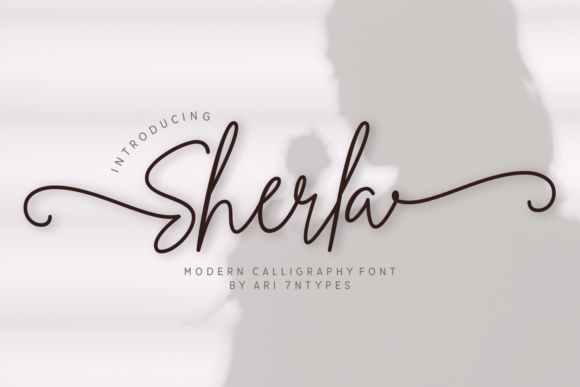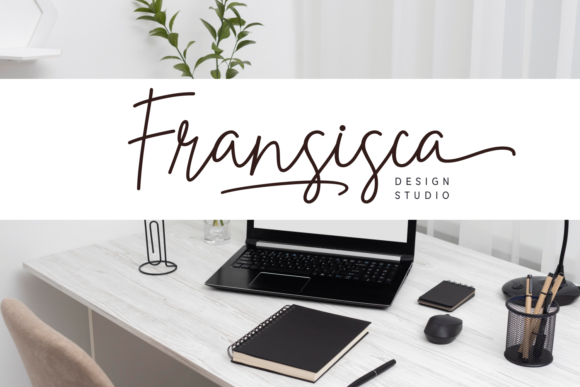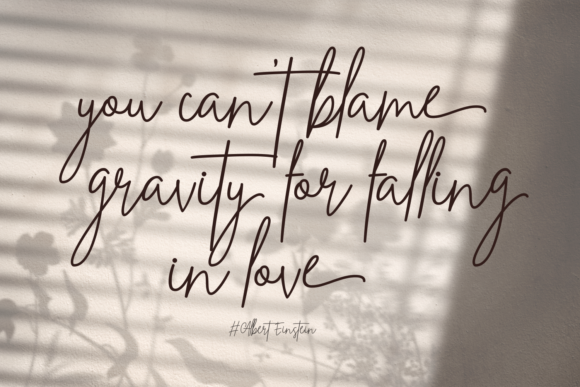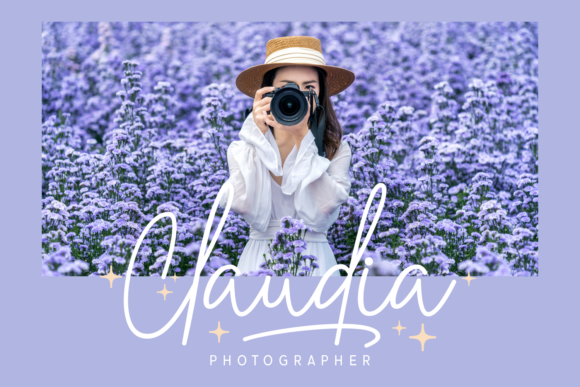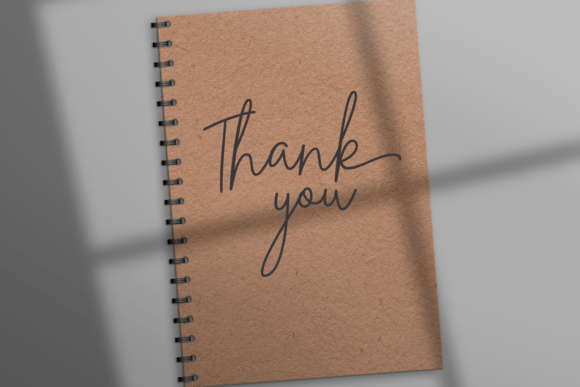
Sherla Font
Introducing “Sherla,” an exquisite and incredibly charming script font designed to elevate your designs with its flowing and elegant characters. With its sophisticated style, Sherla adds a touch of refinement and beauty to any project. Whether you’re creating invitations, branding materials, packaging, or social media graphics, this font promises to make everything more sophisticated and pleasing to the eye.
Sherla’s characters flow seamlessly into each other, creating a sense of fluidity and grace. Its delicate strokes and elegant curves exude a timeless elegance that captures attention and leaves a lasting impression.
With PUA encoding, accessing the wide array of glyphs and swashes is effortless, allowing you to customize your designs with ease. Whether you’re adding flourishes, ligatures, or other embellishments, Sherla offers endless possibilities for creative expression.
Experience the magic of Sherla and let its exquisite charm transform your designs. Whether you’re a professional designer or a DIY enthusiast, this font invites you to explore your creativity and create stunning visuals that resonate with your audience.
Unlock the full potential of your designs with Sherla and watch as they shine with sophistication and beauty. Let its flowing script add a touch of elegance to your projects, creating memorable experiences for your audience.
Embrace the charm and elegance of Sherla and embark on a journey of creativity and inspiration. With its timeless beauty and versatility, this font is sure to become a staple in your design toolkit, adding a touch of refinement to every project.